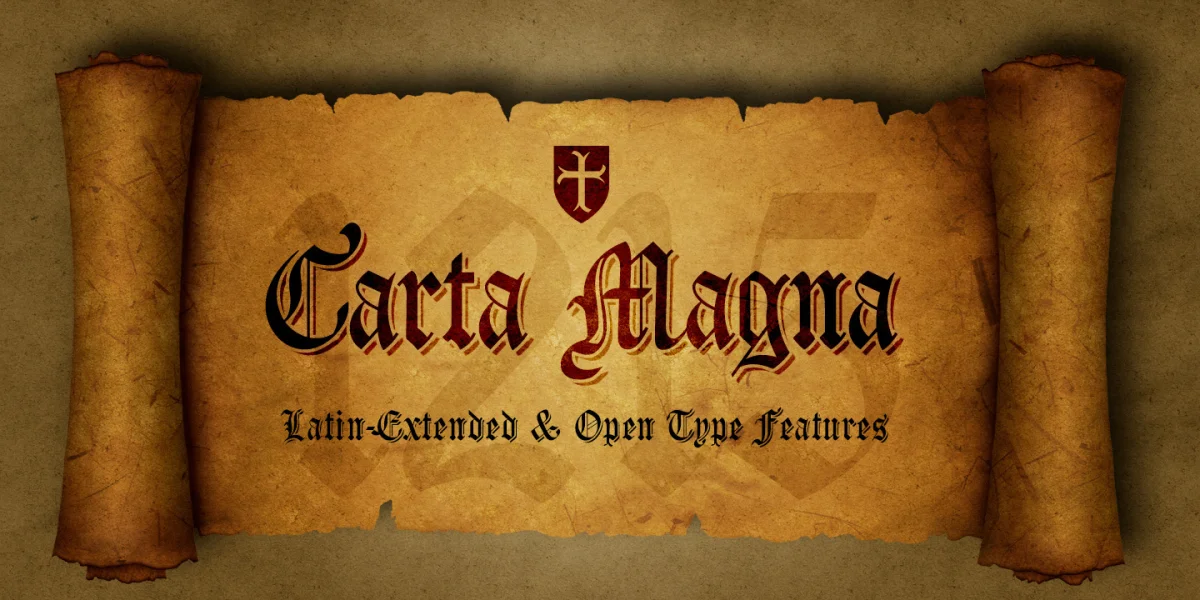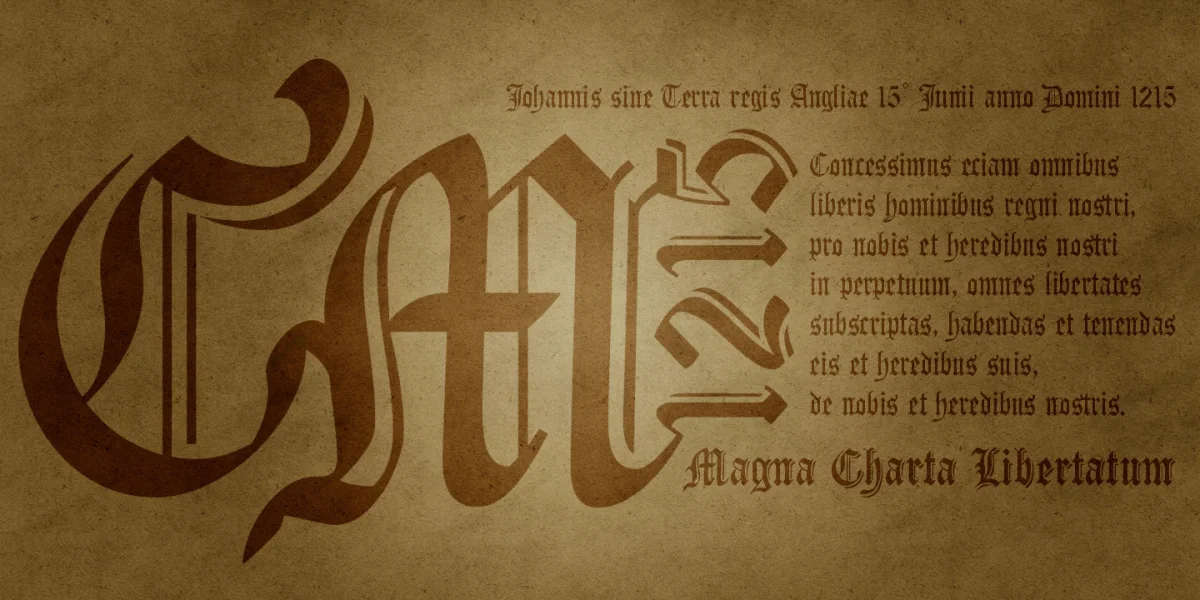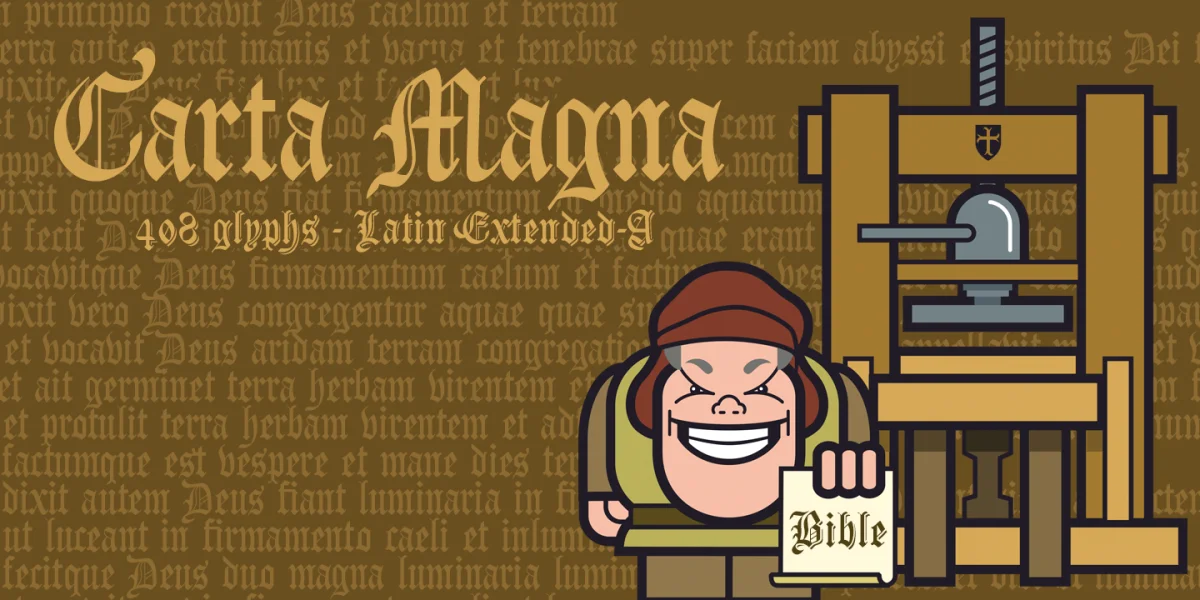
Gothic-style calligraphic font with medieval inspiration, handwritten font dedicated to the first Magna Carta precursor to modern political constitutions. These Gothic font are registered in the style Texture and arise in the low middle age SXIII and suppose an evolution of the lowercase letters Carolinas, being also these types of letters those used by Johannes Gutenberg in S XV for the first Bible printed with movable types.
- Two fonts: Regular & Line
- OpenType Functions: All Alternates, Titling alternates, Additional languages, Standard Ligatures, Slashed Zero, Ordinals, Fractions, Capital Spacing, Oldstyle Figures, Discretionary Ligatures, Localized Forms, Kerning, Historical Forms.
- Bitcoin & shield: b# - a#(ligatures)